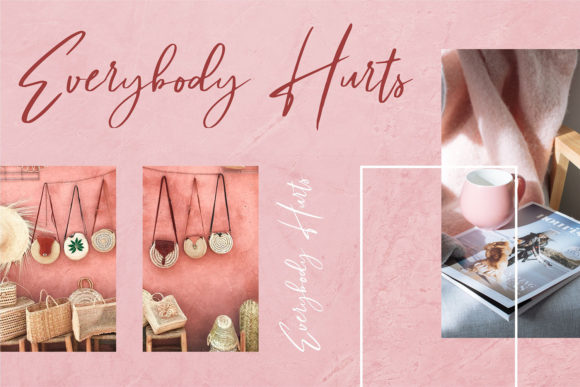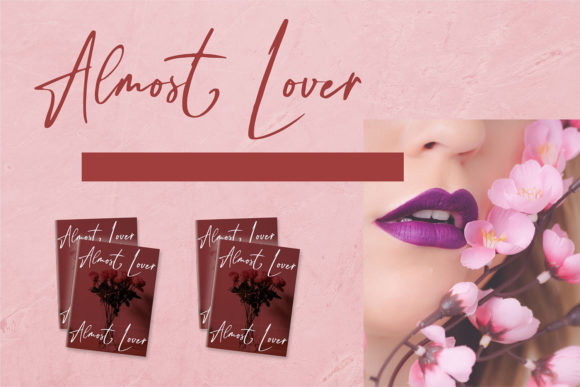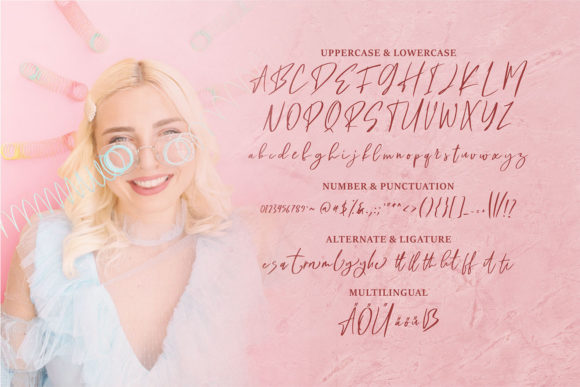
About Gabriyel Font
Gabriyel is a stylish and elegant handwritten font. Its distinct and well balanced letters make this font a masterpiece. This font is PUA encoded which means you can access all of the glyphs and swashes with ease!